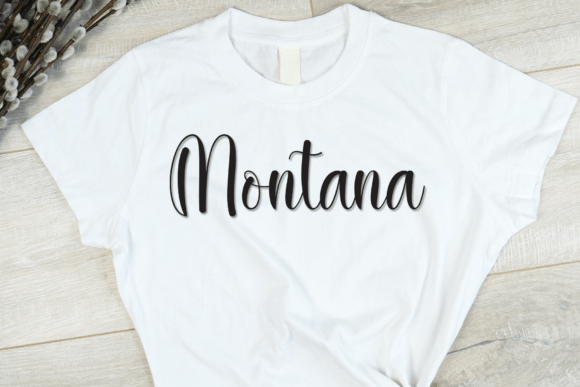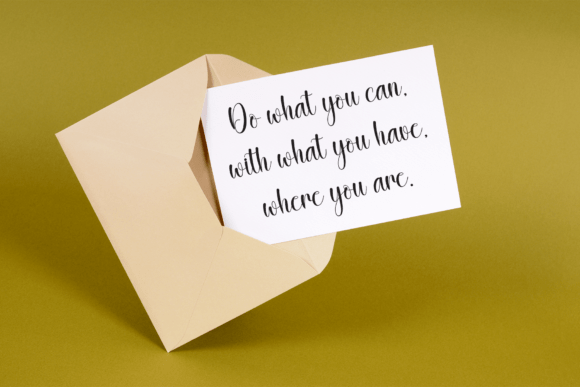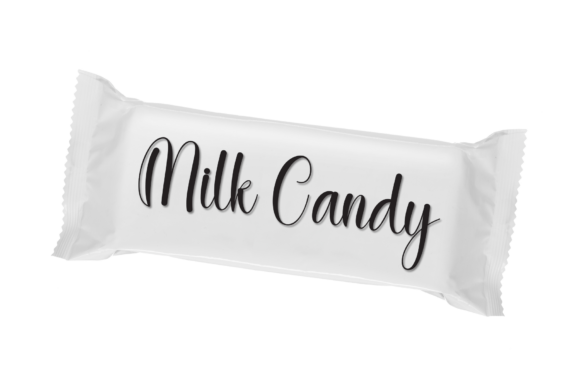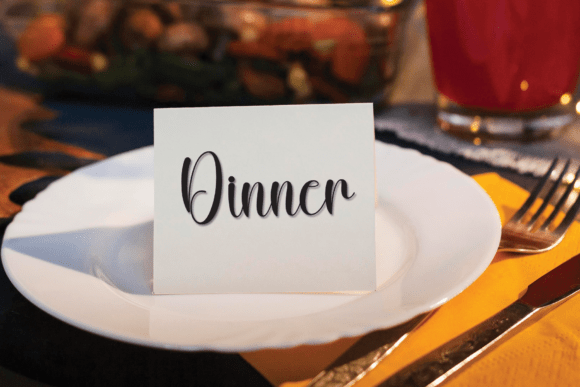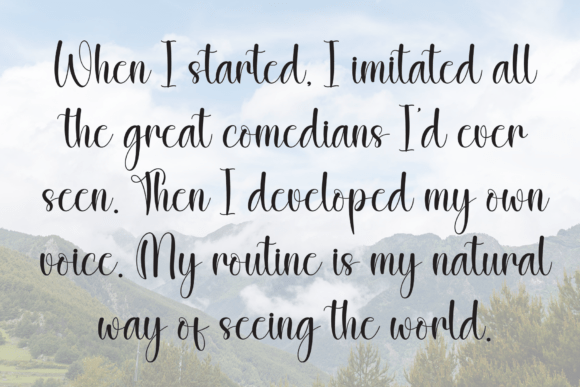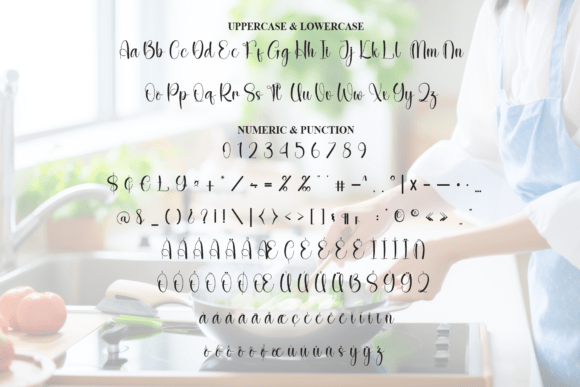
The Elegance of Cooking Font: A Designer’s New Best Friend
I’ll never forget the time I was working on a branding project for a high-end bakery, and I just couldn’t find the right font to match their sophisticated vibe. The client wanted something that exuded elegance, refinement, and a touch of modernity. That’s when I stumbled upon Cooking Font, and it instantly became my go-to. In this article, I’ll share my experience with this beautiful script font, its features, and how to make the most of it in your designs.
First Impressions: A Love Affair with Cooking Font
Cooking Font is a stylish script font that embodies the perfect blend of classic calligraphy and contemporary charm. Its fluid curves, graceful strokes, and meticulously crafted letterforms make it a stunning addition to any design project. Here are some things I love about Cooking Font:
- ✨ Elegant and refined appearance, perfect for high-end branding and luxury designs
- ✅ Highly versatile, suitable for logos, invitations, packaging, and social media graphics
- 💫 Beautifully crafted letterforms with a natural flow and polished details
- 🎨 Supports OpenType features, glyphs, and stylistic alternates for added creativity
A Few Quirks to Keep in Mind
While Cooking Font is an exceptional font, it’s not without its limitations. Here are a few things to consider:
- 🤔 May not be the best choice for body text or long-form content due to its script nature
- ⚠️ Some characters may require manual kerning for optimal spacing
The Story Behind Cooking Font
Cooking Font was designed with the intention of capturing the essence of hand-drawn calligraphy with a modern twist. Its creator aimed to craft a font that would exude elegance, sophistication, and refinement, while still being versatile and easy to use. The result is a stunning script font that has become a favorite among designers and crafters alike.
| Font Name | Cooking Font |
| What type of designs is Cooking Font best suited for? | Cooking Font is ideal for logos, invitations, packaging, and social media graphics that require a touch of elegance and sophistication. |
| Can I use Cooking Font for body text or long-form content? | While Cooking Font is a beautiful font, it’s not recommended for body text or long-form content due to its script nature. It’s best used for headlines, titles, or short paragraphs. |
| Does Cooking Font support OpenType features and glyphs? | Yes, Cooking Font supports OpenType features, glyphs, and stylistic alternates, allowing you to add unique touches to your designs. |